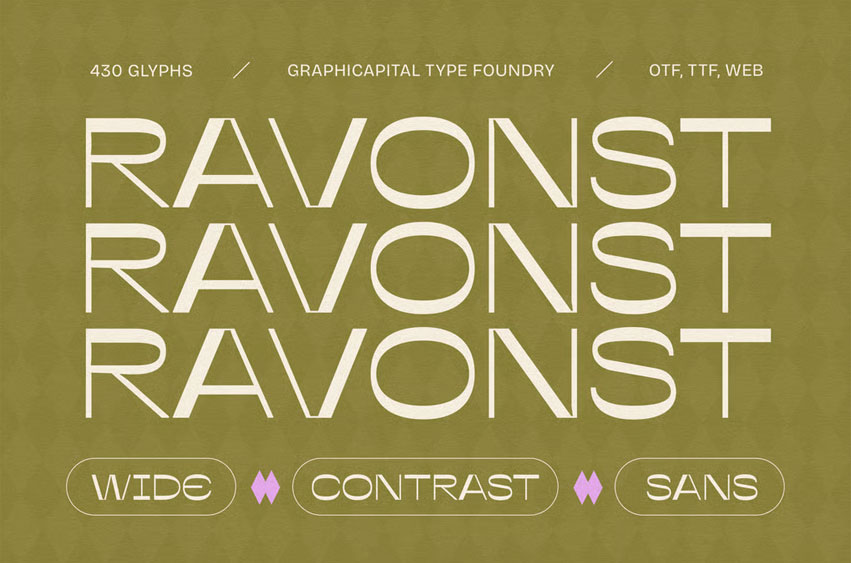
Ravonst Font
Ravonst Font is a wide-contrast sans-serif font that combines broad letterforms with elegant line variation. Its design evokes a modern, futuristic, and distinctive aesthetic—perfect for branding, editorial, and visual projects that seek a bold yet minimalist statement.
Ideal for branding, posters, headlines, packaging, album art, game visuals, and promotional designs. It adds personality to any creative project and helps your message stand out effortlessly.